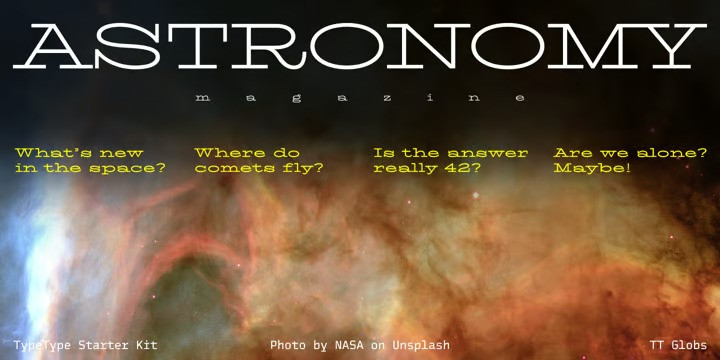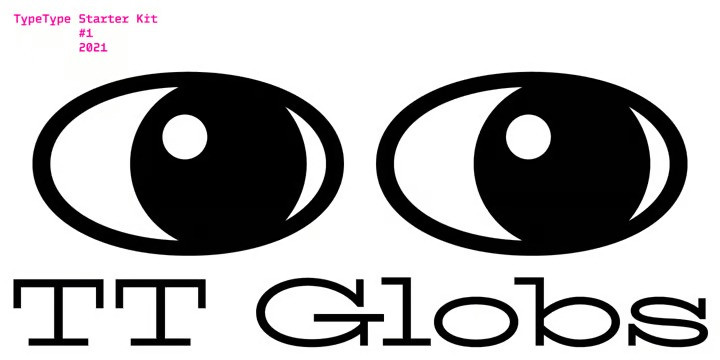
TT Globs Serif Font is the first font from the TypeType Starter Kit line, which is aimed at providing designers with fashionable typefaces featuring the basic set of font instruments of the same quality and development level as in the main TypeType line.
The main differentiating feature of the line is the basic number of styles (only the most popular weights), absence of Cyrillic support, and a very thought-through character font composition without extra features and other superfluous elements. Thanks to such an approach, fonts from the TypeType Starter Kit line are democratically priced and are affordable for many designers.
We were inspired to develop TT Globs by the idea to unite historical slabs with contemporary perceptions about fonts, their uses, and display shapes of letters. Working on the typeface, we even wanted to make curves more mechanical and rather modular, which would be very much in contrast with the cozy lines from historical specimens.
The main visual features of TT Globs are the long display serifs, which create a unified text image and connect all the letters, especially uppercase, into an almost uninterrupted dynamic chain. Thanks to the long serifs and rather narrow spacing, the result of working with the text will always be a little different, and depending on the words you choose, you can even create particular images.
In addition, TT Globs stands out by its very wide letter proportions, tall lowercase characters, and long ascenders and descenders. To mix up the rigid font rhythm, we created asymmetric wave-like terminals and flowing elements in some letters. Specifically, the flowing shapes of the letters GSQRasgec can be mentioned in this regard—they attract attention and can even serve as an important element in a logotype.
The TT Globs font family consists of 3 weights (ExtraLight, Light, Regular) and one variable font. Each style has 625 glyphs and 26 OpenType features. An interesting feature of the typeface is the stylistic alternates, for instance, Q and R with straight legs which make the font feel more serious. In addition, the font also has a set of alternative letters with sticking serifs, a set of beautiful ligatures, and several original icons and frames.